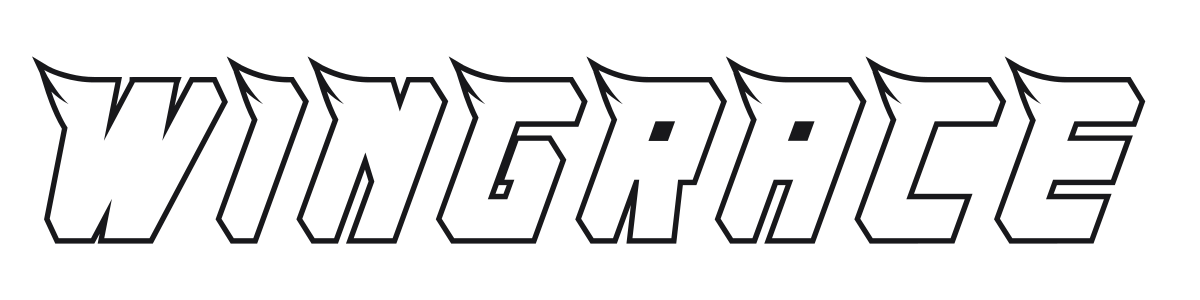
WingRace
WingRace is a bold italic outline display font built around speed and action. Sharp angular cuts, notched terminals, and a strong forward lean give every character an aggressive racing-inspired character. The heavy outline construction makes it pop at large sizes for posters, logos, and game titles.